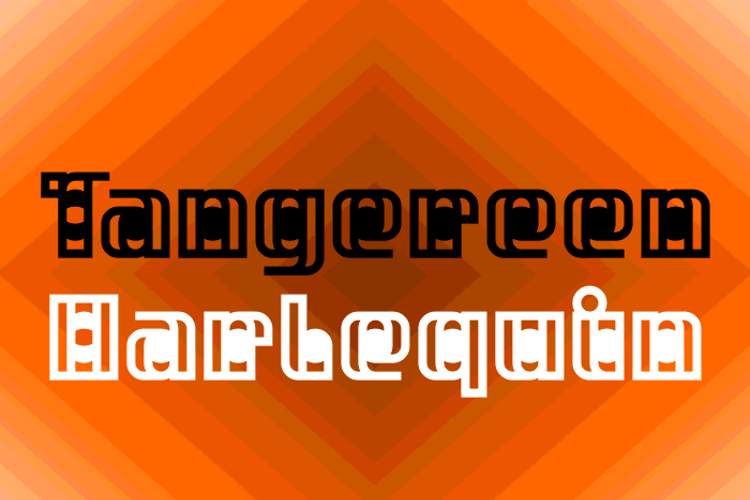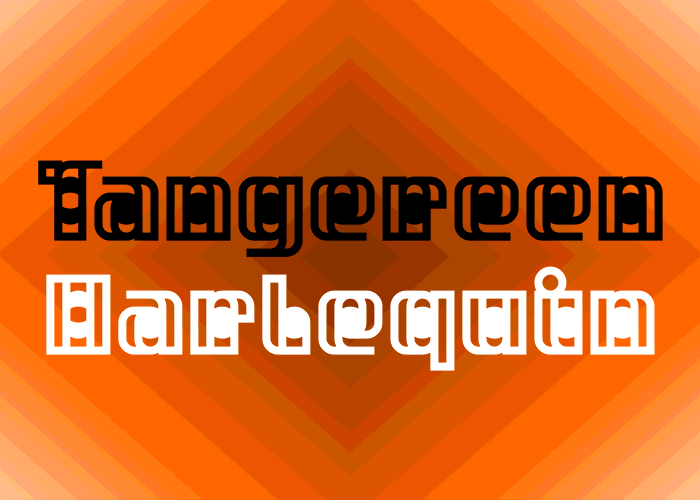
Tangereen Harlequin Font
Double Struck
About Tangereen Harlequin Font
The fourth (and perhaps final?) rendition of Tangereen. This one is a bit hard to read, but has a certain ornamental appeal.